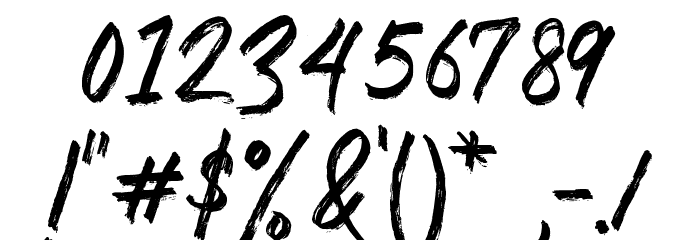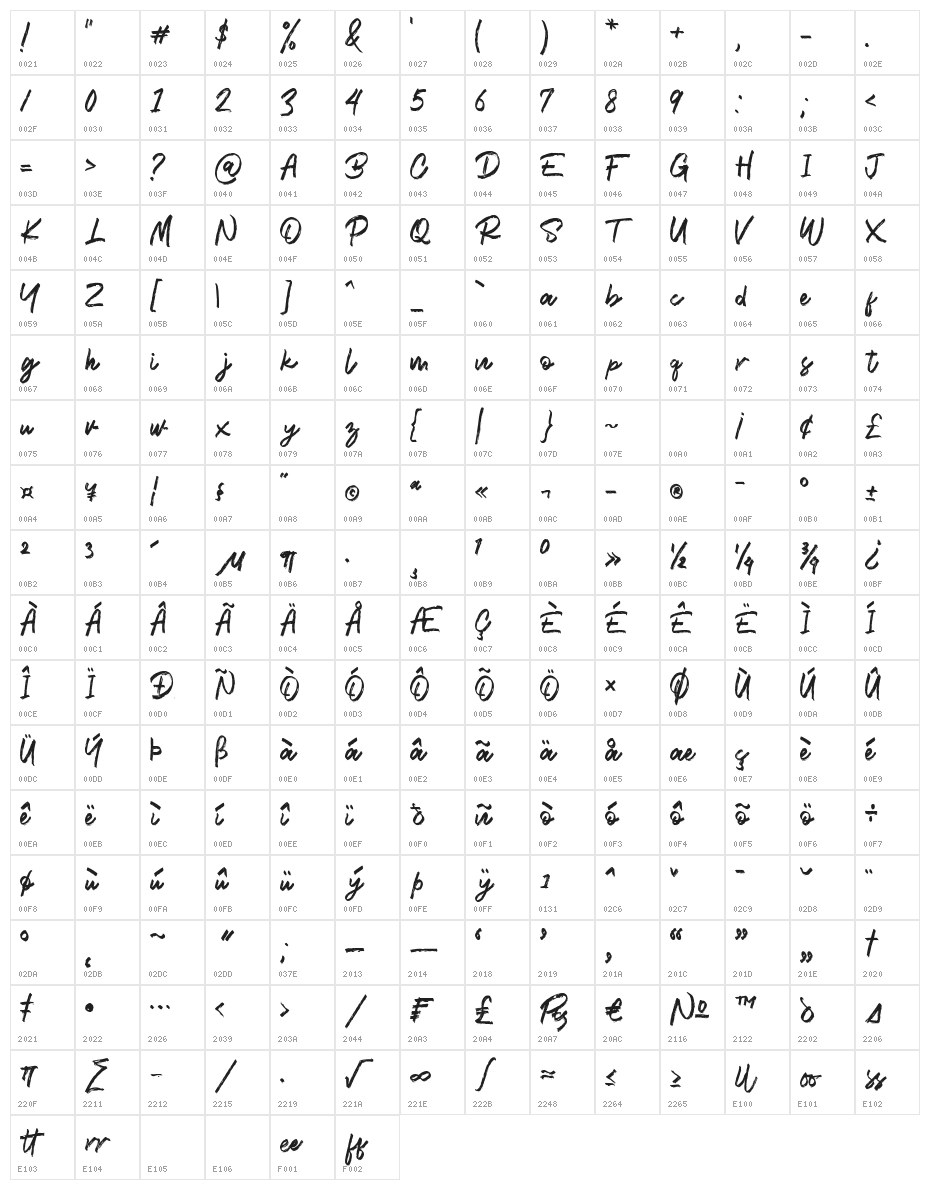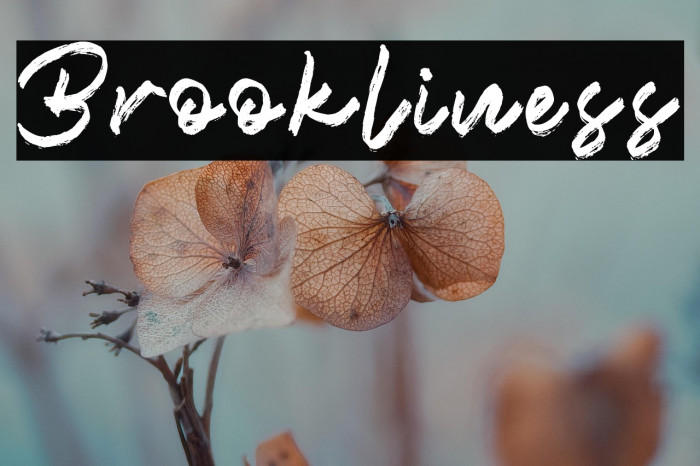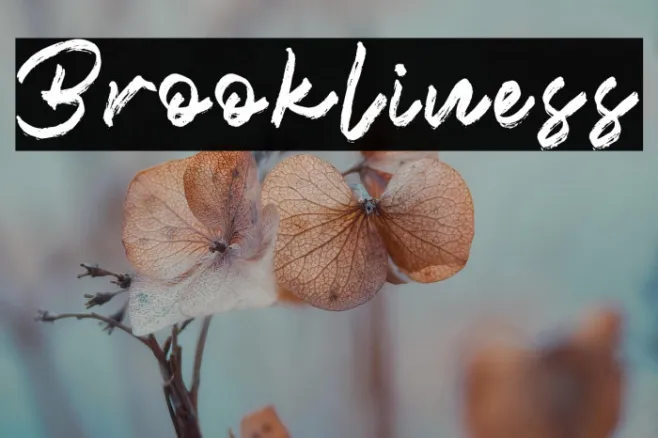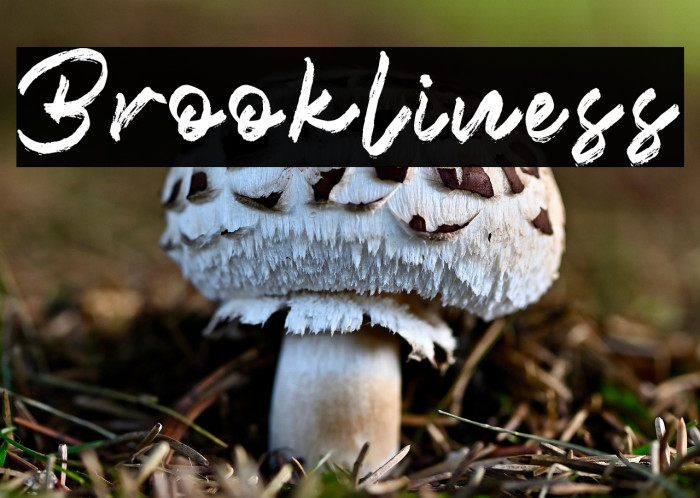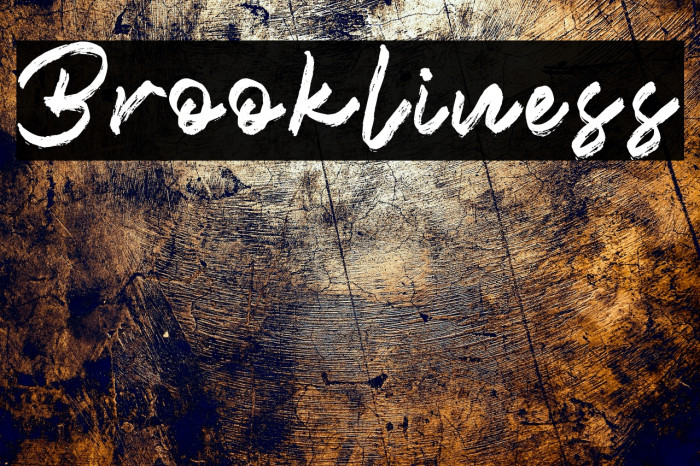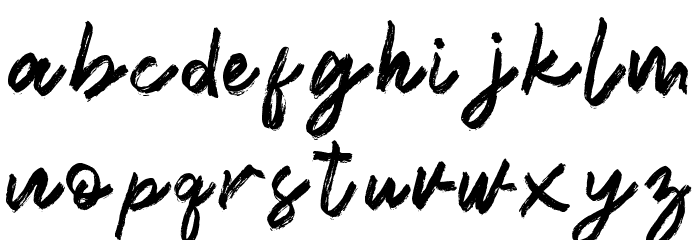
Brookliness Font
Brookliness Description
This font exudes a bold, expressive style with a handwritten appearance, characterized by its brush-like strokes and dynamic flow. The uppercase and lowercase letters maintain a consistent, artistic flair, with each character displaying unique variations that enhance its organic feel. The numbers and special characters follow the same expressive style, making them stand out with their bold presence. The overall design is reminiscent of a casual, yet sophisticated handwritten note, perfect for adding a personal touch to any project.
| Proposed Projects | Ideal for branding, social media graphics, invitations, and creative projects that require a personal, artistic touch. |